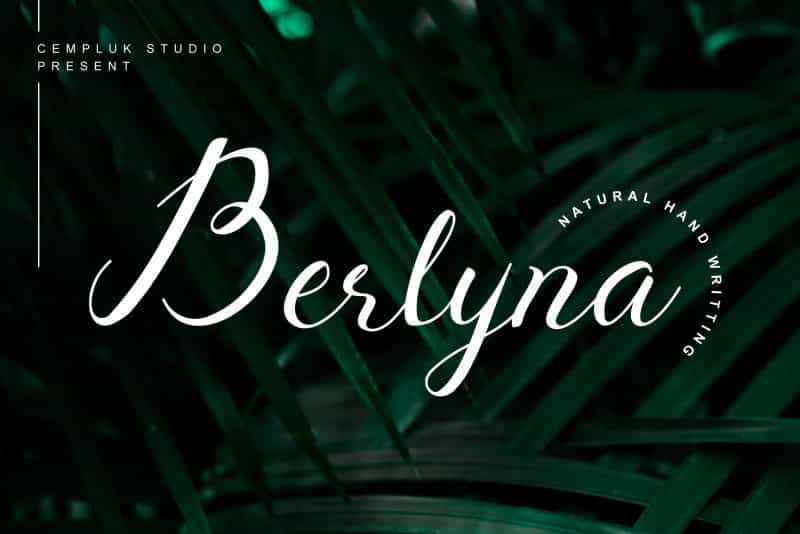
Discover Berlyna Modern Script Font, part of the Calligraphy Handwritten collection—a versatile and unique font perfect for adding a personal touch to your projects. Download it for free and enjoy crafting designs with style, from invitations to social media posts. This font is available exclusively for personal use, giving you the freedom to create without limits. Unlock your creativity with Berlyna Modern Script Font today!
Introducing Berlyna – Modern Script Font This Font can be used for any variety of purposes, such as: photography, Wedding, Packaging Products, Logo Type, Branding, T-Shirt Design, Website/Blog, Cover Magazine, Brochures and also can be used for personal purpose.